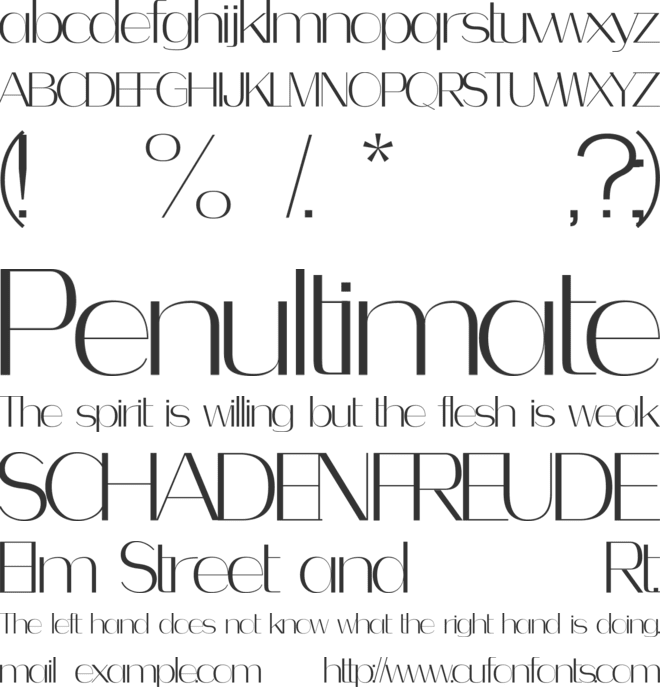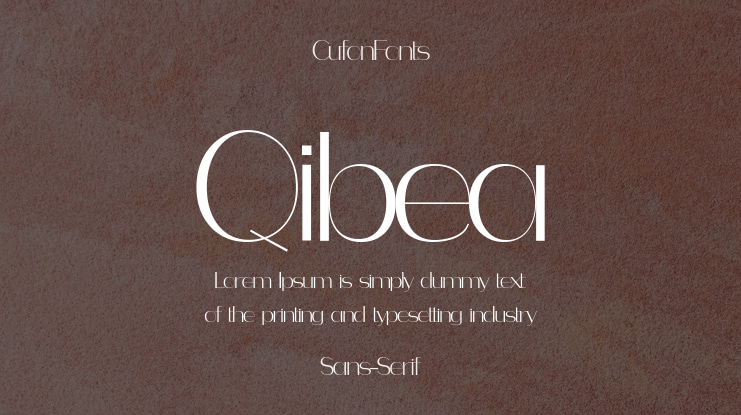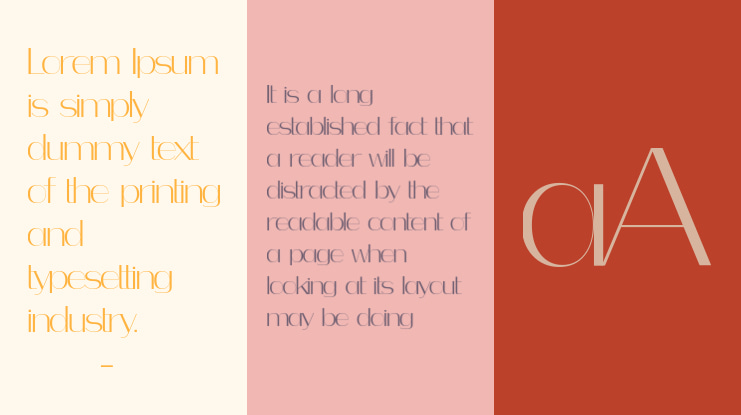
Qibea Font Family
Qibea is a delicate sans serif with 600+ glyphs and multilingual support—ideal for feminine branding, editorial elegance, and luxury packaging.